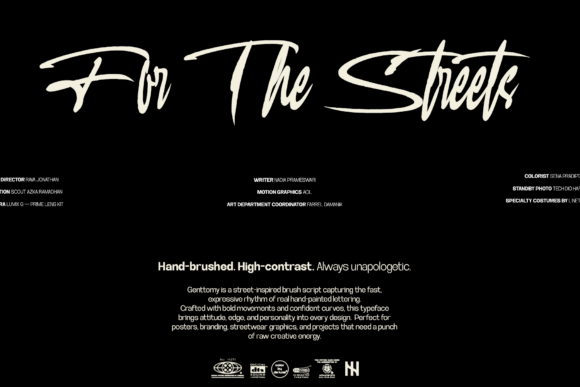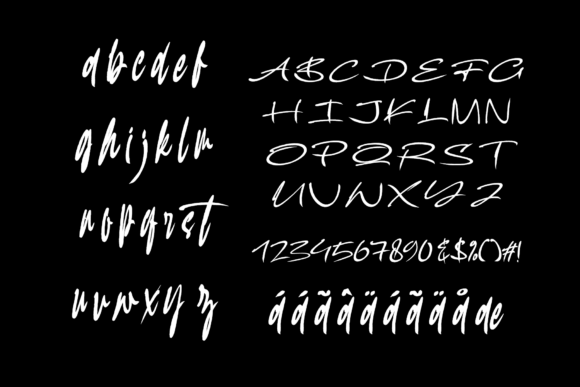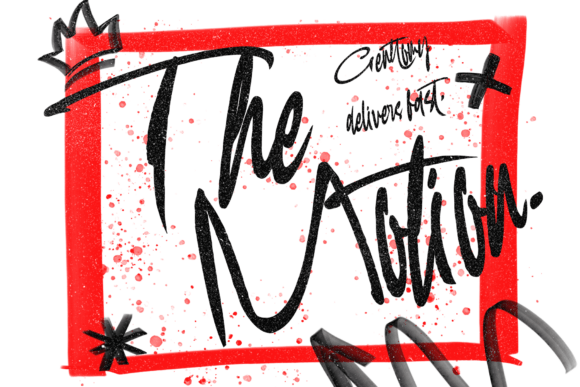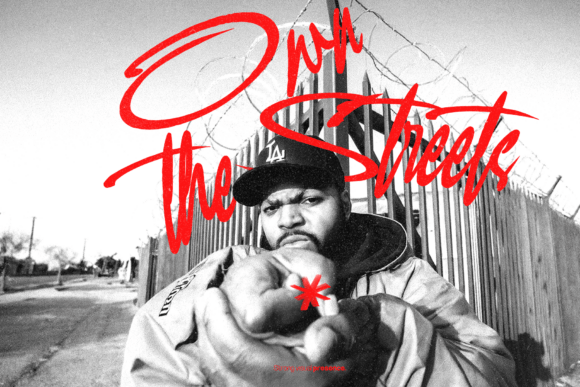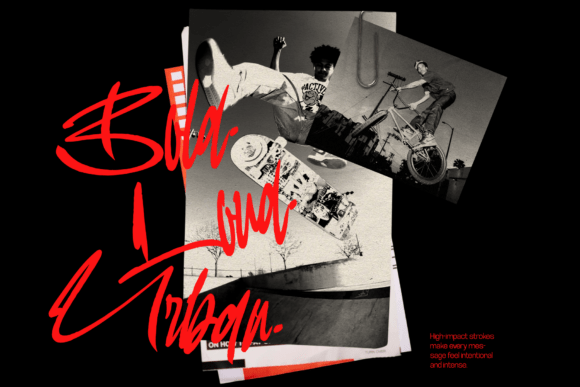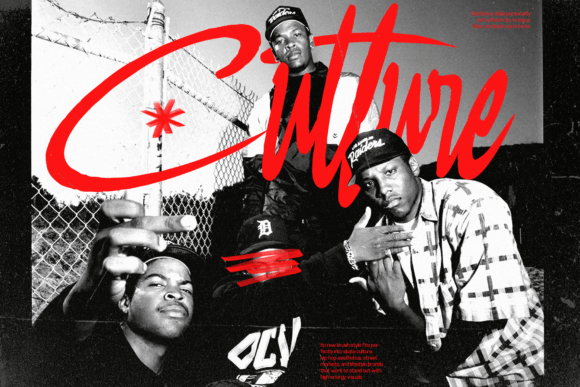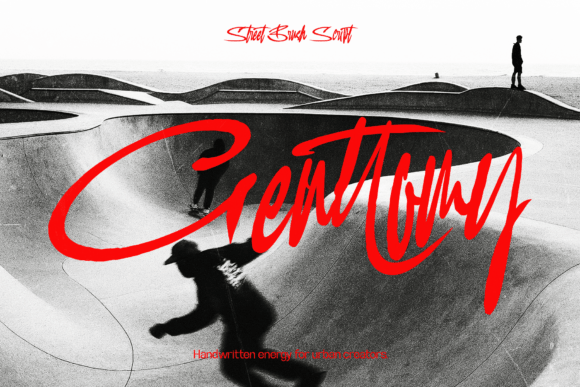
Introducing Genttomy Font: Unleash Your Creativity with a Street-Inspired Brush Script
Are you tired of using the same old fonts for your designs? Look no further! Genttomy Font is here to revolutionize your creative projects with its bold, street-inspired brush script style. This font is not just a collection of letters; it’s an attitude, a statement, and a movement. With its fierce energy, handcrafted strokes, and high-impact presence, Genttomy Font is perfect for designers and crafters who want to make a lasting impression.
What Makes Genttomy Font Unique?
Genttomy Font is a meticulously crafted font that boasts a complete set of uppercase and lowercase characters, punctuation, numerals, multilingual accents, and a natural street flow. This extensive feature set allows you to express yourself freely, without any limitations. The font’s handcrafted strokes give it a unique, organic feel that’s reminiscent of street art and urban culture.
Genttomy Font is versatile and can be used for a wide range of projects, including:
- Poster headlines: Make a bold statement with Genttomy Font and grab the attention of your audience.
- Streetwear branding: Give your brand a street-smart edge with this font’s high-impact attitude.
- Urban art: Add a touch of authenticity to your urban art pieces with Genttomy Font’s natural street flow.
- Hip-hop visuals: Create bold, eye-catching visuals that reflect the energy and swag of hip-hop culture.
- Mixtape covers: Give your mixtapes a professional, high-quality look with Genttomy Font.
- Skate culture designs: Pay homage to the skate culture with a font that’s inspired by the streets.
- Music merch: Create bold, eye-catching merchandise that reflects the energy of the music scene.
- Editorial spreads: Add a touch of urban grit to your editorial spreads with Genttomy Font.
- Bold typography experiments: Push the boundaries of typography with Genttomy Font’s unique, handcrafted strokes.
Key Features of Genttomy Font
Genttomy Font comes with a range of features that make it a must-have for designers and crafters:
- Complete set of uppercase and lowercase characters
- Punctuation and numerals
- Multilingual accents
- Natural street flow
- Handcrafted strokes for a unique, organic feel
- High-impact attitude that’s perfect for bold designs
Why Choose Genttomy Font?
In a world where fonts are a dime a dozen, Genttomy Font stands out from the crowd. Here are just a few reasons why you should choose Genttomy Font for your next project:
- Unique, handcrafted strokes that give your designs a personal touch
- High-impact attitude that’s perfect for making a statement
- Versatile and can be used for a wide range of projects
- Complete set of characters and features for maximum expression
- Perfect for designers and crafters who want to add a touch of urban grit to their work
Genttomy Font is more than just a font – it’s a movement, a statement, and a way to express yourself. With its bold, street-inspired brush script style, handcrafted strokes, and high-impact attitude, Genttomy Font is perfect for designers and crafters who want to make a lasting impression. Whether you’re working on a poster headline, streetwear branding, or urban art piece, Genttomy Font is the perfect choice. So why wait? Unleash your creativity with Genttomy Font and take your designs to the next level!